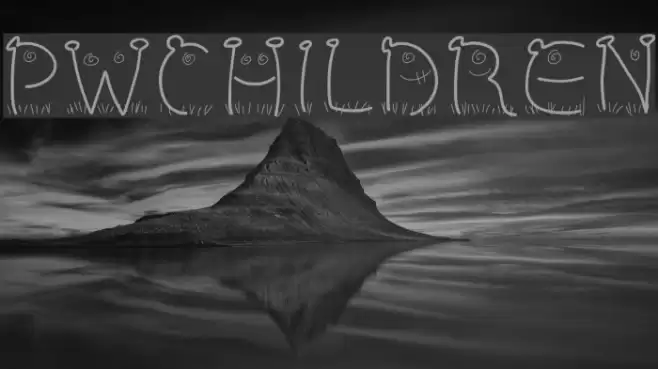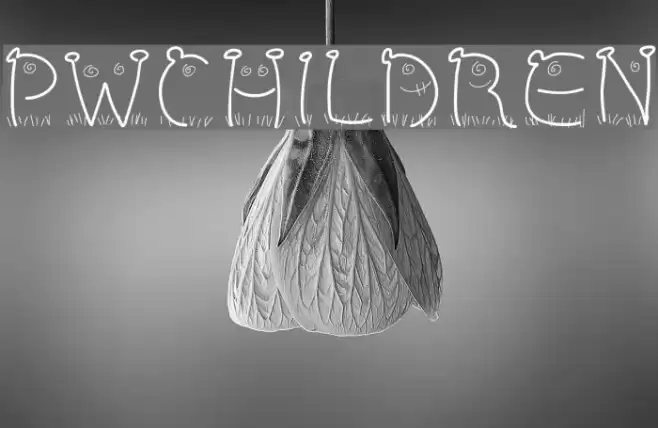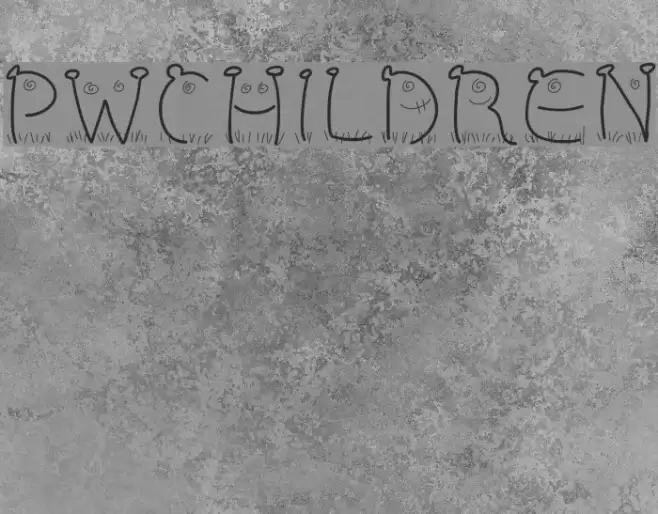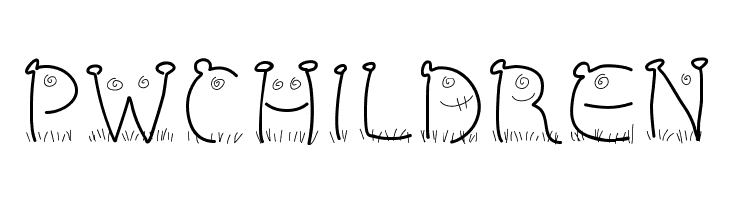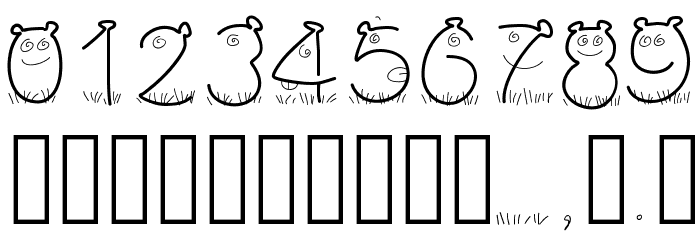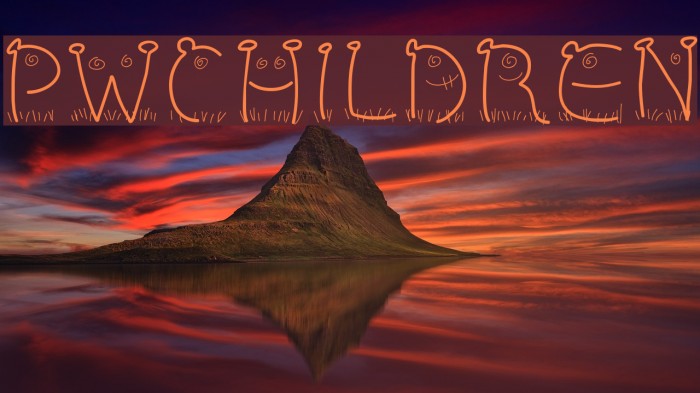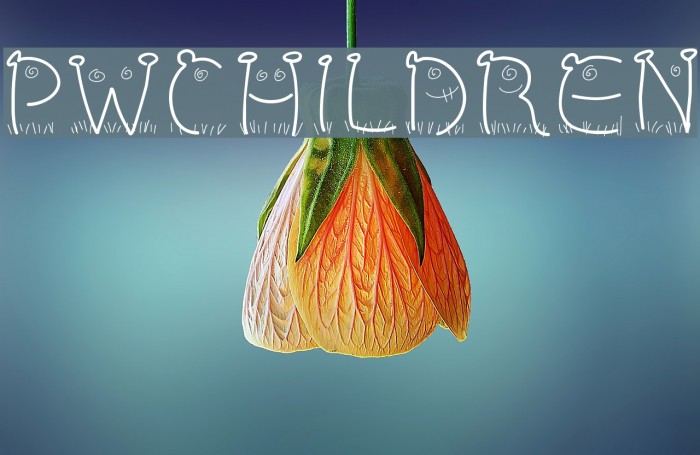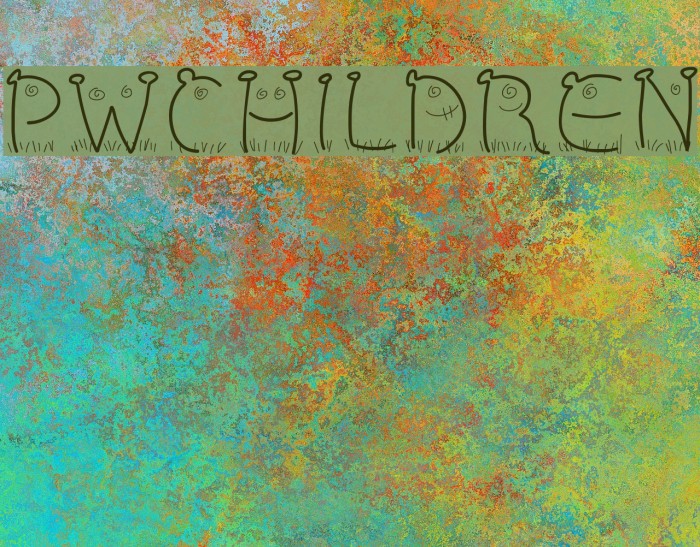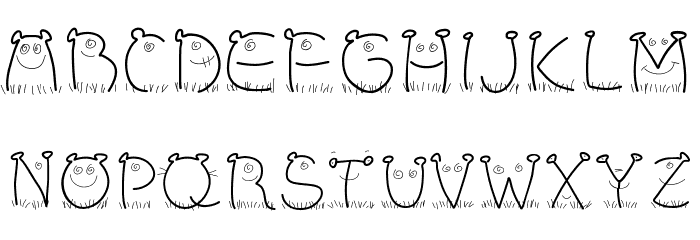
PWChildren Font
PWChildren Description
This playful and whimsical font features characters with a charming, cartoon-like appearance. Each letter and number is designed with a pair of eyes and small ears, giving them a friendly and animated look. The strokes are rounded and smooth, with a consistent thickness that adds to the font's approachable and fun style. The inclusion of grass-like elements at the base of each character enhances its playful nature, making it ideal for children's projects or any design that requires a lighthearted touch. The font maintains a consistent baseline, and the characters are evenly spaced, ensuring readability while maintaining its unique personality.
A playful, cartoon-like font with characters featuring eyes and ears, perfect for children's designs from Decorative fonts.
- Proposed Projects: Ideal for children's books, educational materials, playful branding, and whimsical invitations.
- Overall Style: Playful, Whimsical
- Use Case: Headlines, Logos, Children's materials